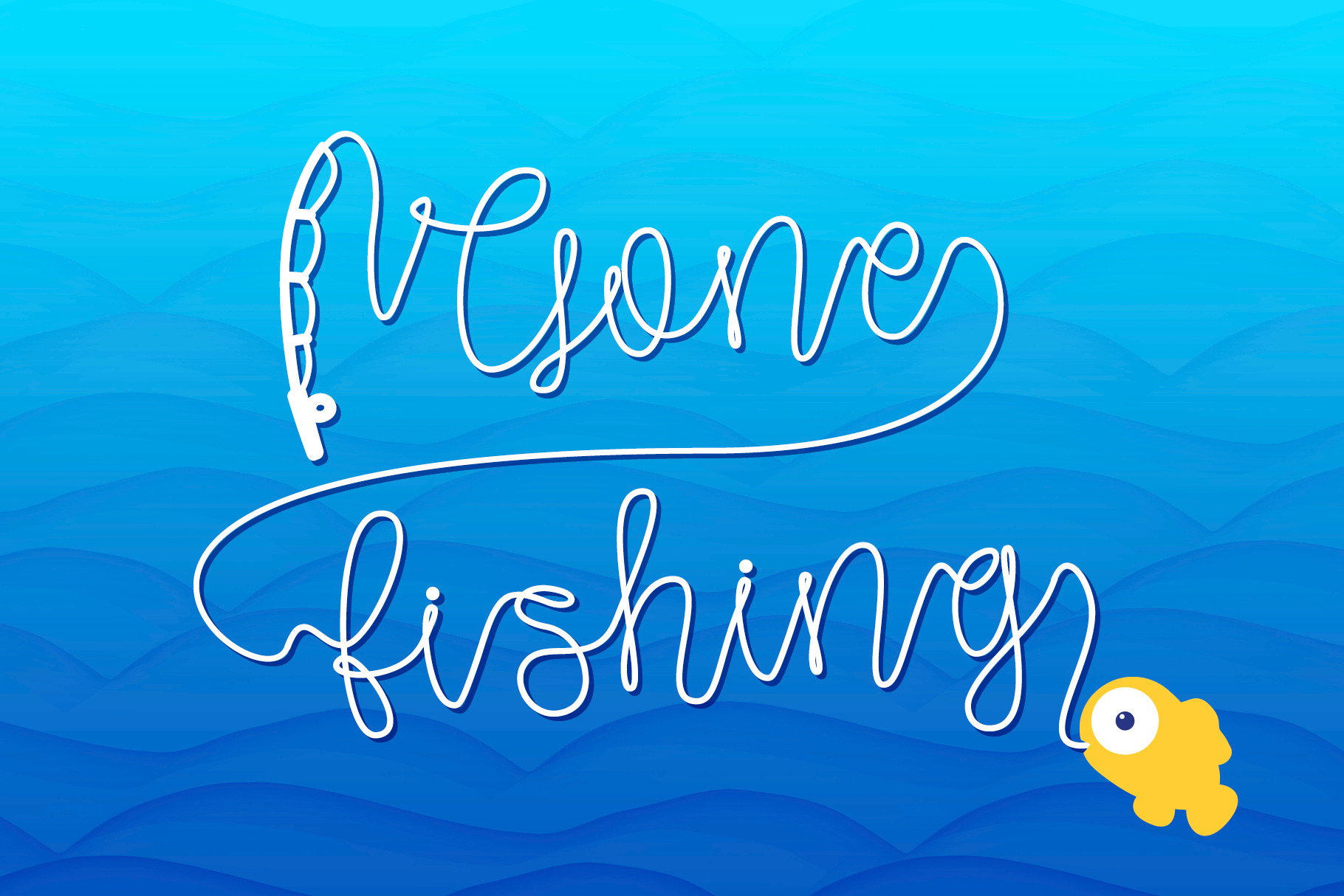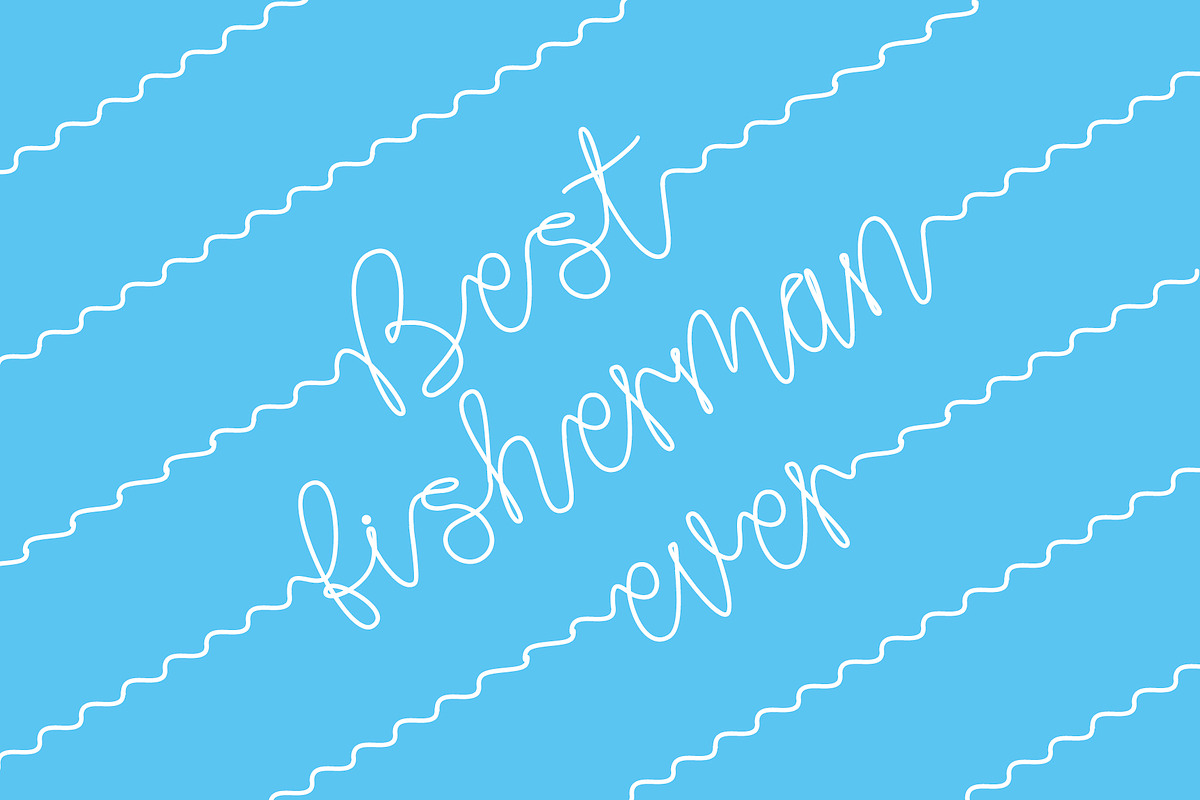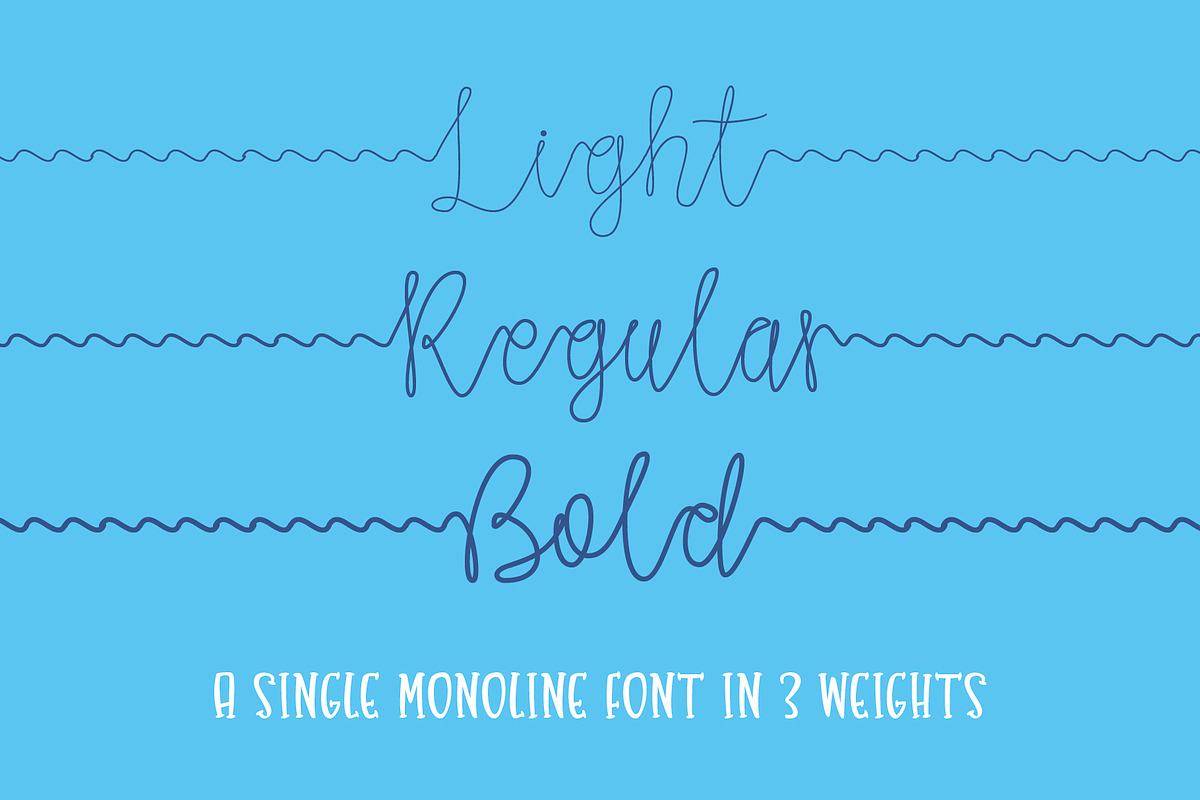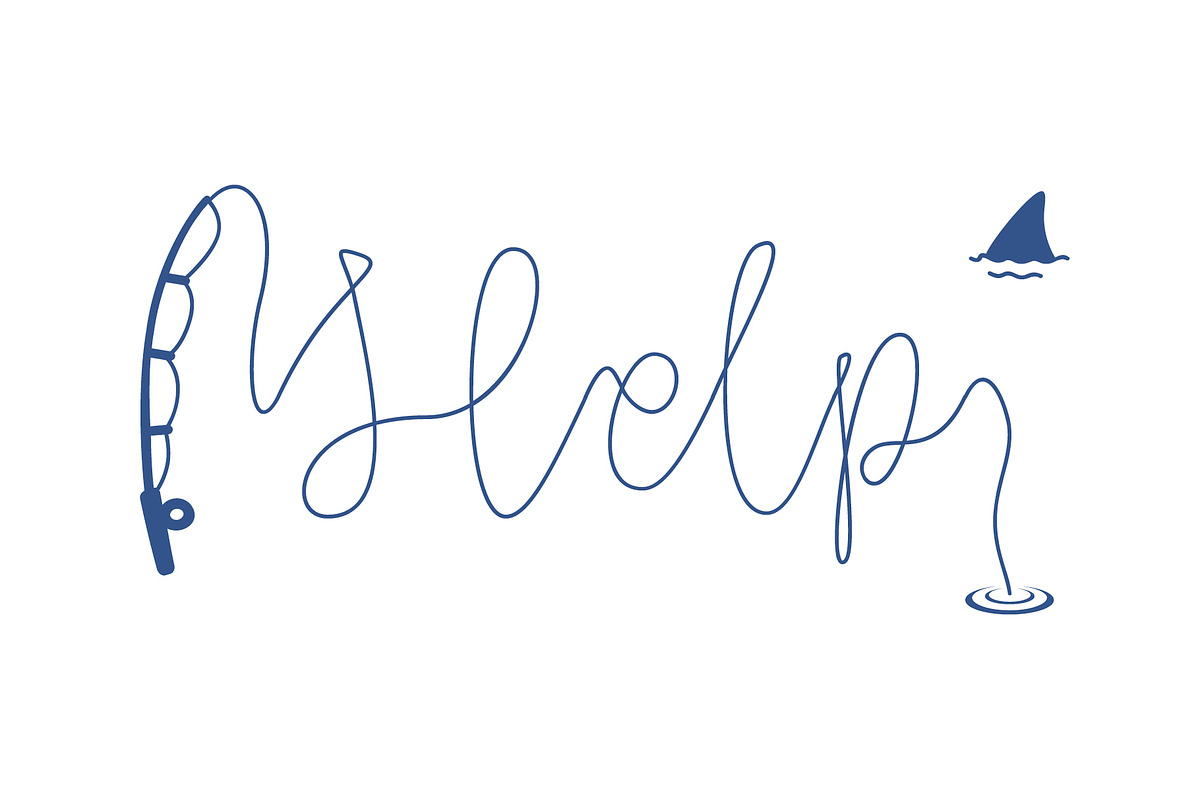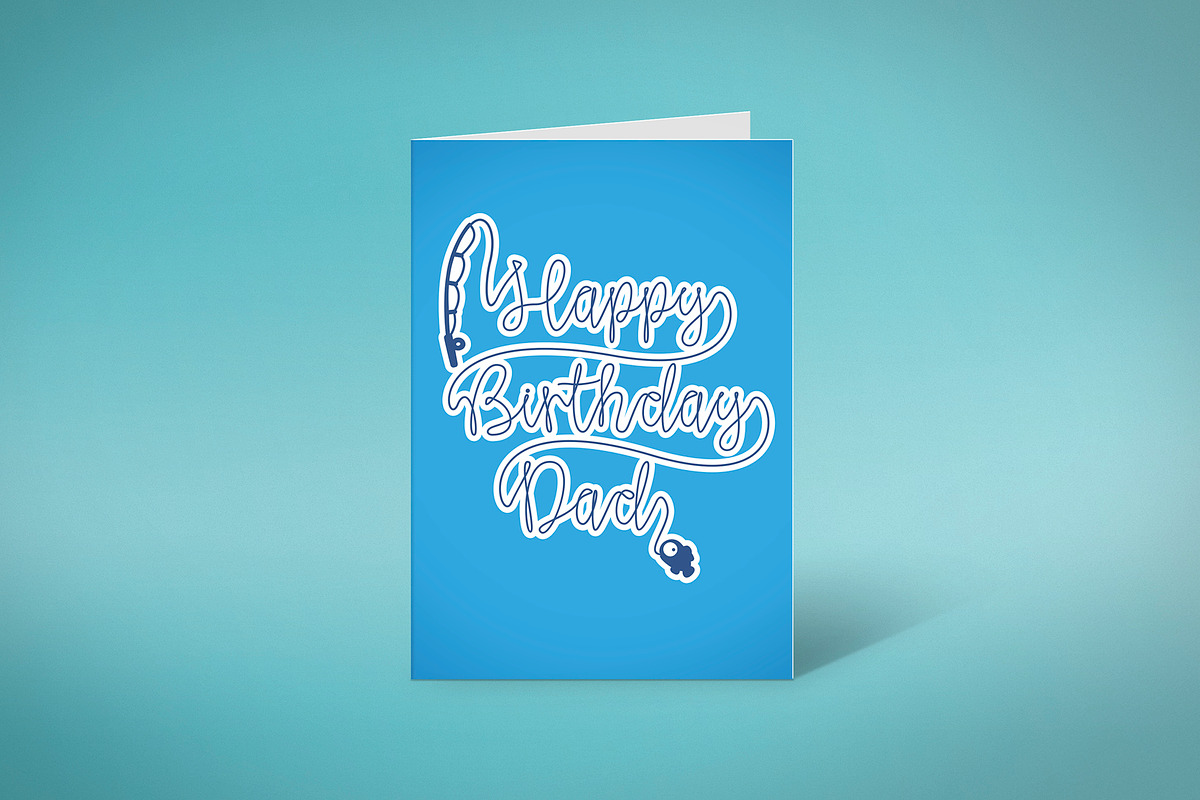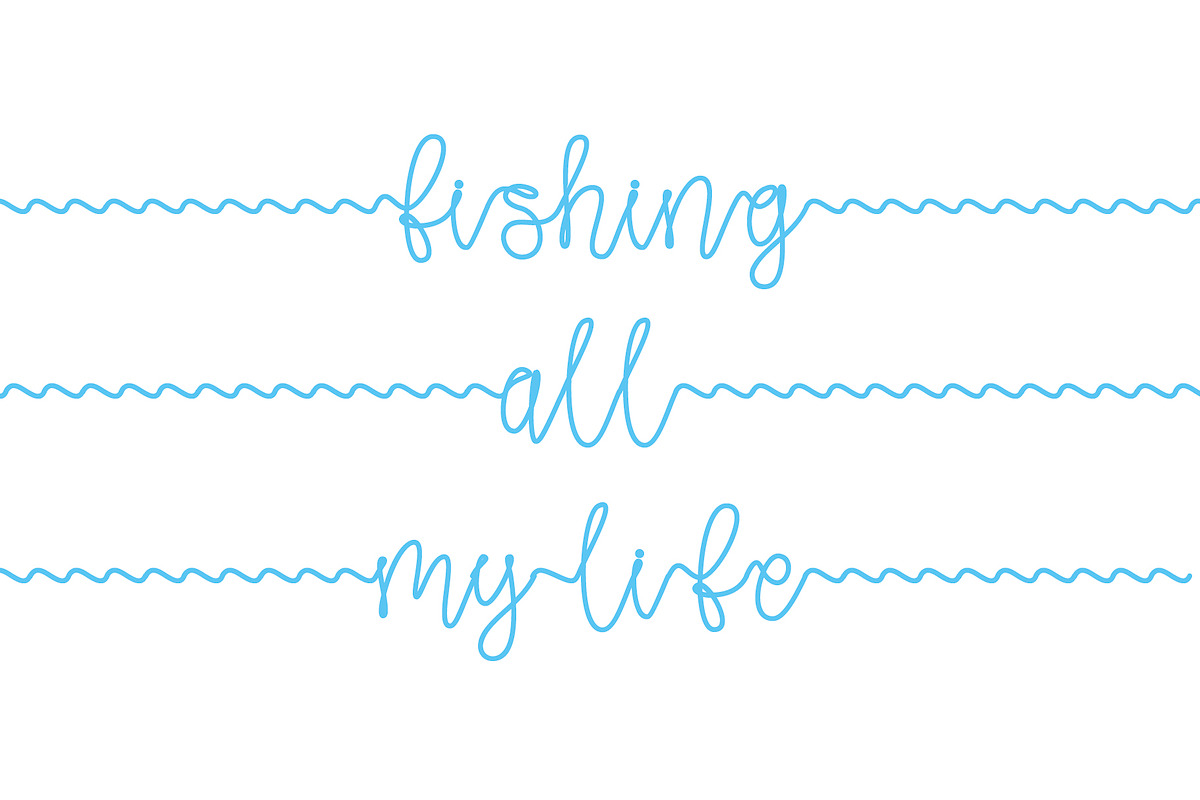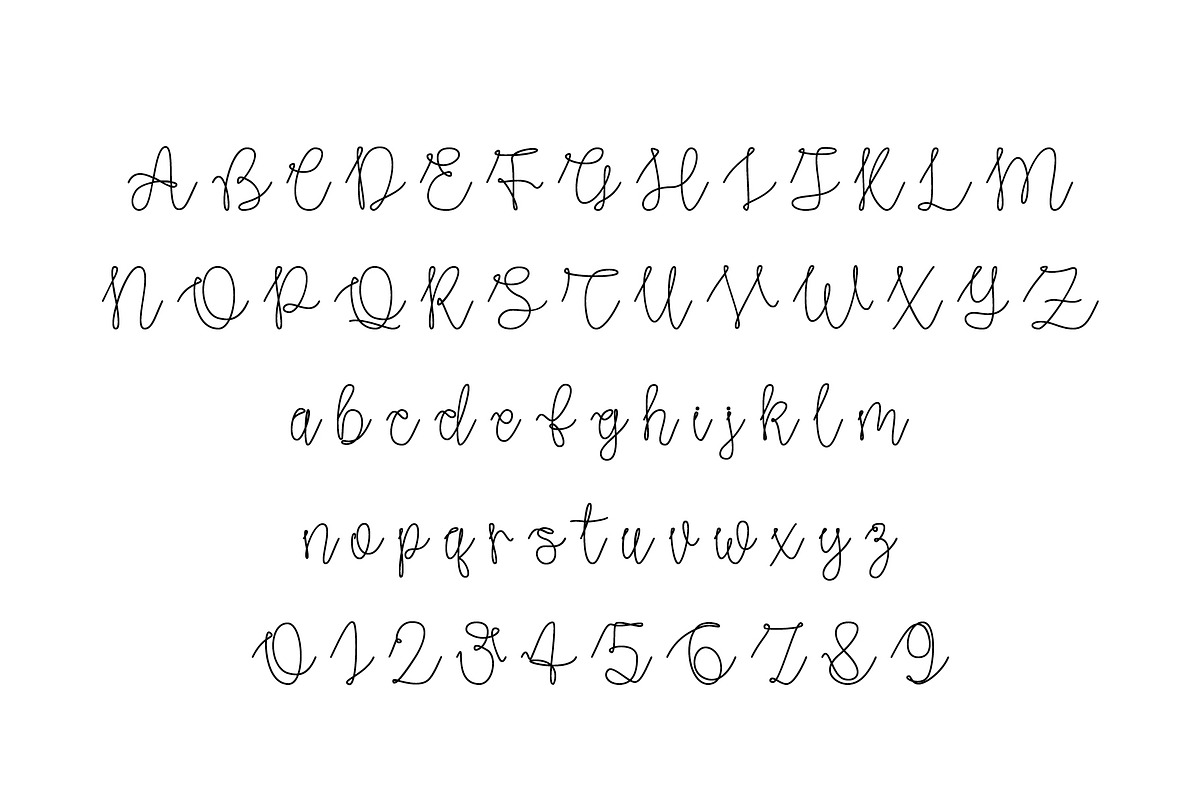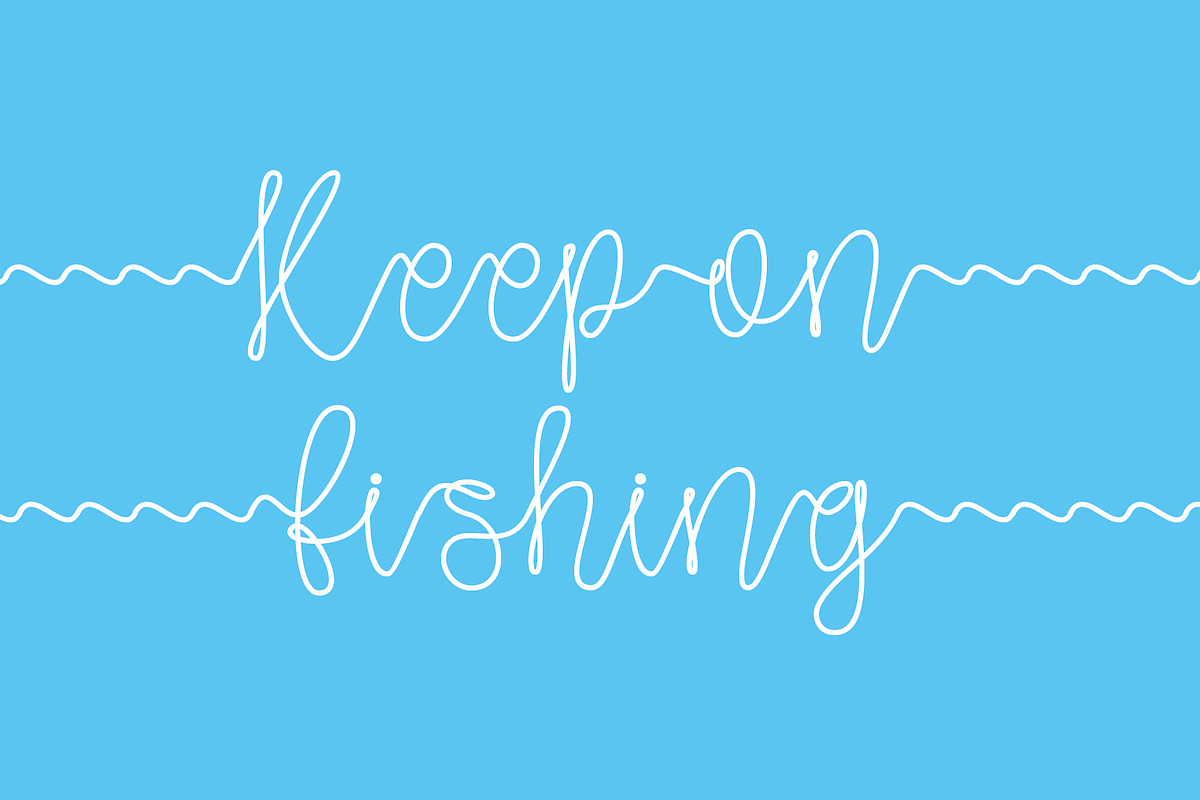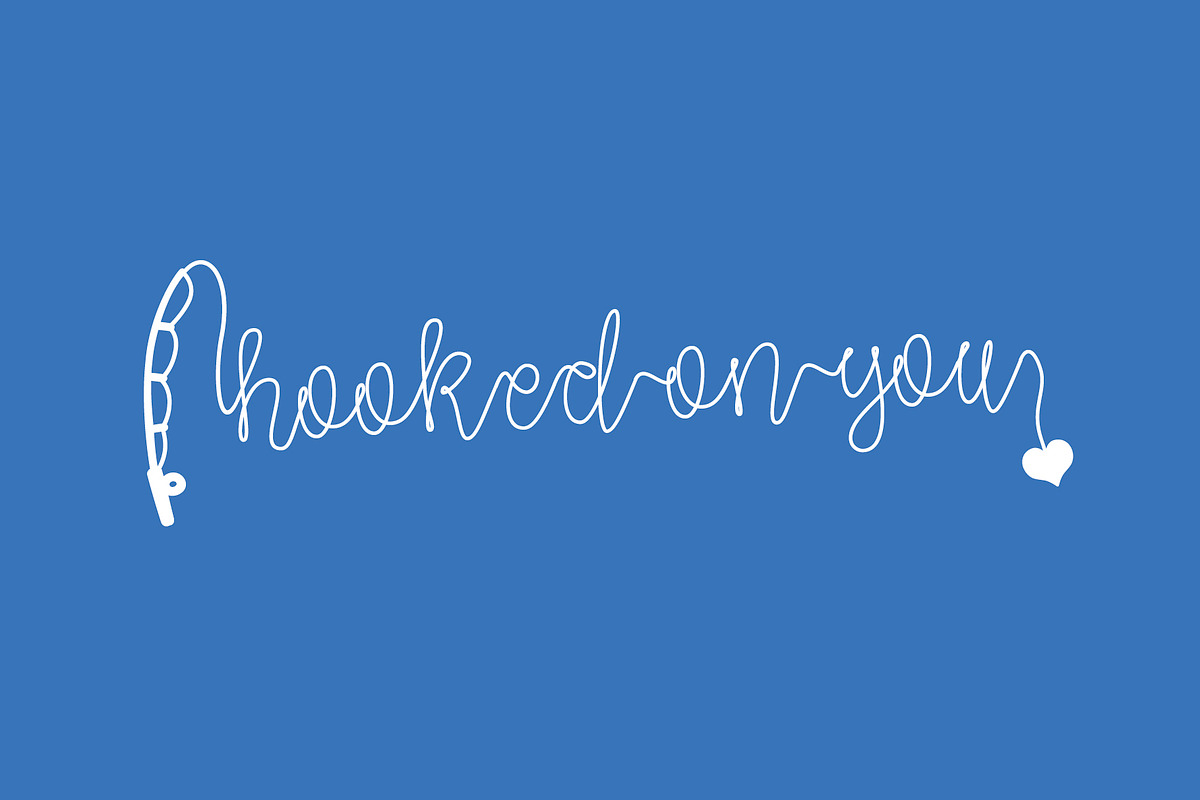
Gone Fishing - a fishing font!!!
Gone Fishing font is a single, monoline font designed for the words to flow as one continuous fishing line font.
There are a number of various rods, hooks, bait and catches. These can be used to create endless variations.
Use the hyphen, en-dash and em-dash to create a flowing line between words. Other punctuation keys create the fishing rods, fishing line ends and catches. Open brackets - either (, [ or { will give a fishing rod option and closing these brackets will end the fishing line at the other end of the writing. Other punctuation keys are used for various elements. See if you can find the hidden shark!
This is a great font for any angler or fishing related design. A perfect fathers day font, birthday font or any other special occasion where the recipient loves fishing! A great font for crafts and crafting. Cute and quirky! Let us know if you have any suggestions for characters to add!
Comes in 3 weights – light (10 lb) regular (20 lb) and bold (30 lb).
KEY
Open Brackets '(', '[', '{' and Slash '/' – Rods
End brackets ')', ']', '}' – Catches
Backslash '' and Quote " – More catches
Comma ',' and Asterisk '*' – 'Float' and 'line in water'
Question mark '?', Bullet Point '•' – Fish
Dollar '$' and Percent '%' – Lure
Sterling '£' – Double hook
Period Centred '·' (also known as Interpunct) – Shark
CONNECTING MULTIPLE LINES The easiest way to achieve this is simply to draw a connecting line between text on stacked lines in your chosen software. Then adjust the weight of the line to match the font weight and size. We have also added Greater '' to add a drop down line (to be used at the top text line end). And Less '' to add a reach up line (to be used at the line beginning of the next line of text below). Bar '|' gives a length of line to connect the two together (to be placed on it's own text line – BUT this will need to be stretched to fit).